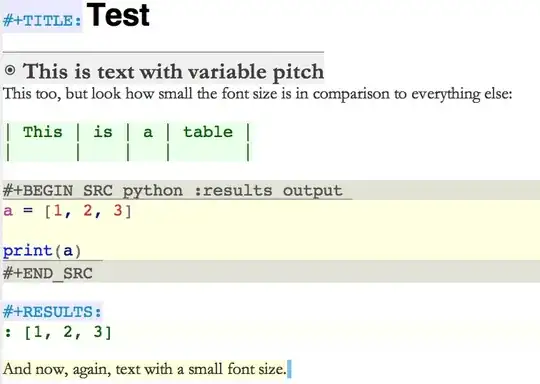
I've learned here that I can customize my variable-pitch font. For org-mode, I'm using that customization together with the following snippet to get a mix of variable and fixed-pitch fonts:
Everything except for normal text is displayed in fixed-pitch, which is displayed with variable-pitch. The problem with my solution is that the font-size for both fonts is different and the variable-pitch looks really small and hard to read. How can I adapt my solution so that both fonts have the same size?
Example image:
This may or may not be what you are asking for, but if you set the :height property (i.e. font size) on default to some integral size, then you set the :height property on variable-pitch to a fractional value and it will be interpreted as a scaling factor applied on the parent face.